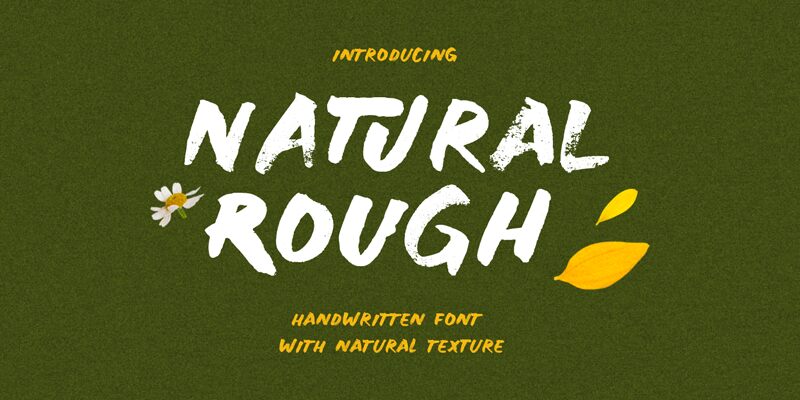
Natural Rough, a bold and captivating brush font crafted by the talented designers at Letterhend Studio, exudes a rugged, handcrafted charm. This typeface boasts a distinct personality, with its uneven strokes and organic contours, creating a sense of authenticity and character. The bold weight lends a powerful presence, while the brushed finish adds a touch of raw, expressive flair. Evoking the essence of artisanal craftsmanship, Natural Rough invites viewers to explore its unique aesthetic, captivating the eye and stirring the imagination.
The versatility of Natural Rough by Letterhend Studio makes it a versatile choice for a wide range of design applications. Its bold, eye-catching presence makes it an excellent selection for headlines, logos, and branding elements, while its brush-like quality lends itself beautifully to editorial layouts, packaging design, and advertising campaigns. Whether you're crafting a rustic, artisanal aesthetic or seeking to infuse your designs with a touch of rebellious charm, Natural Rough is a font that can elevate your creative vision.